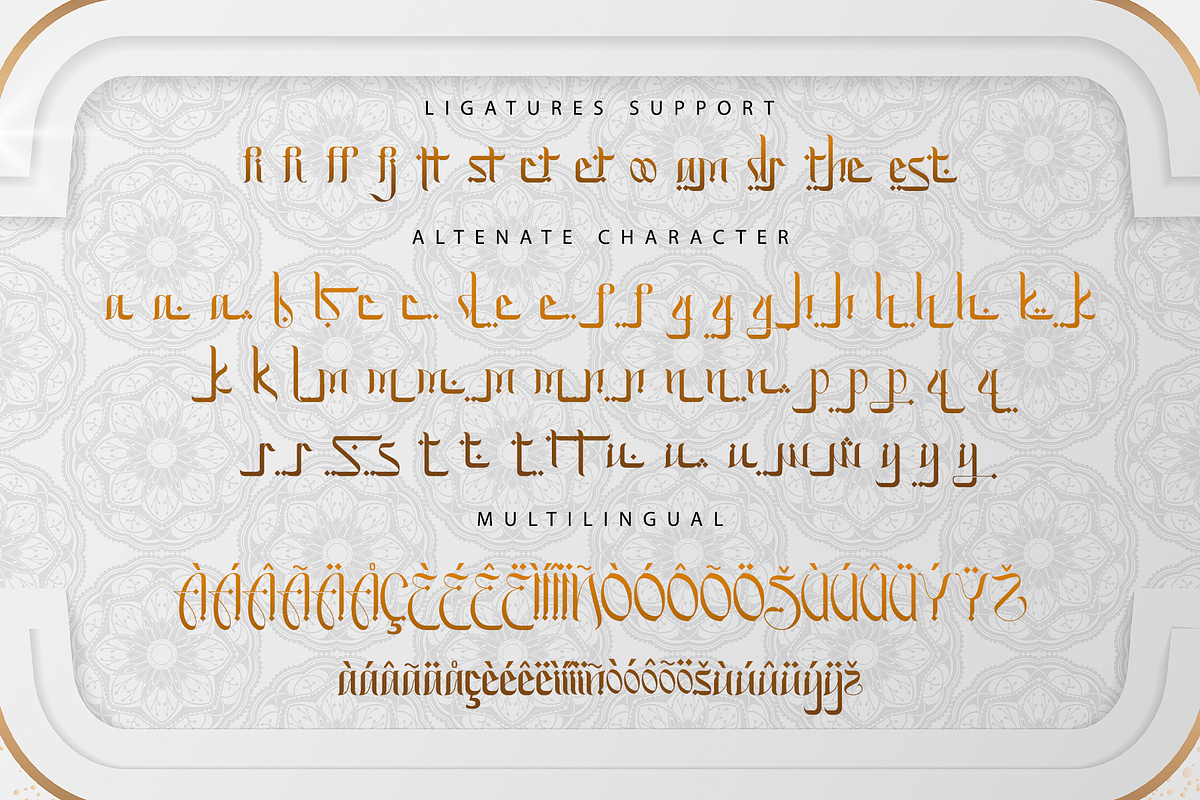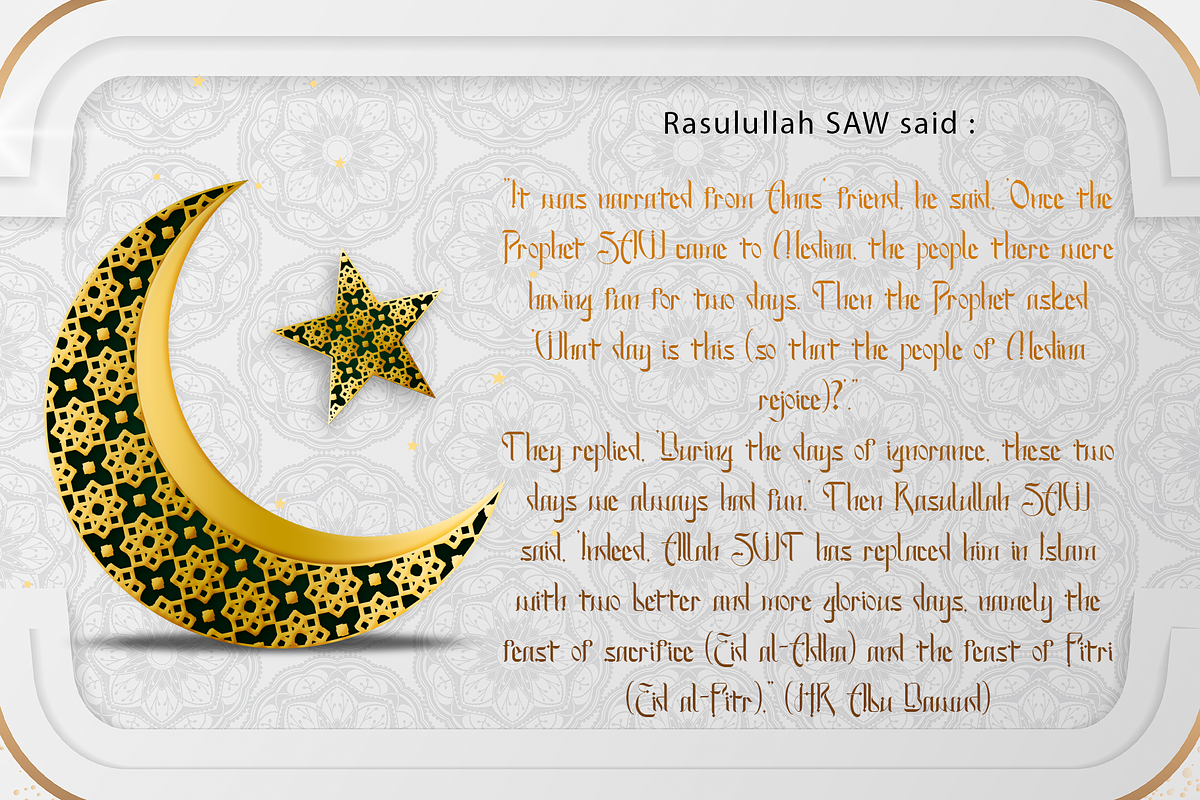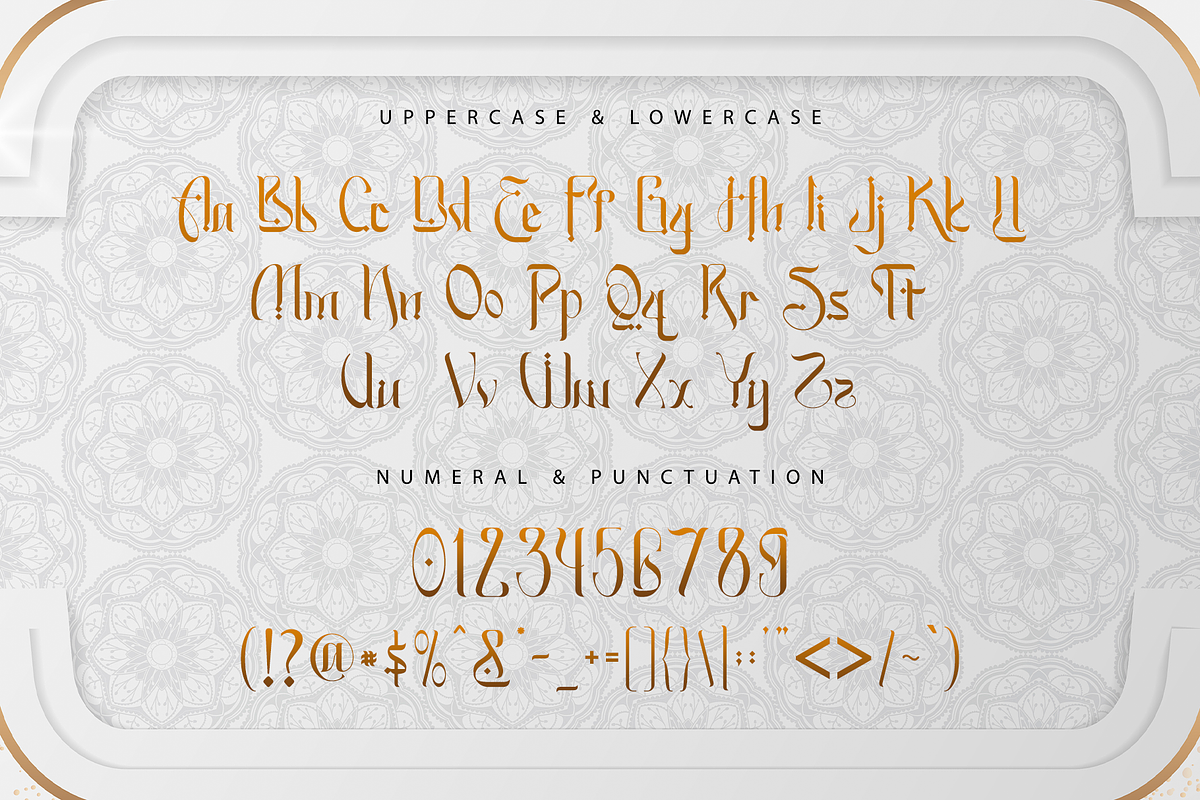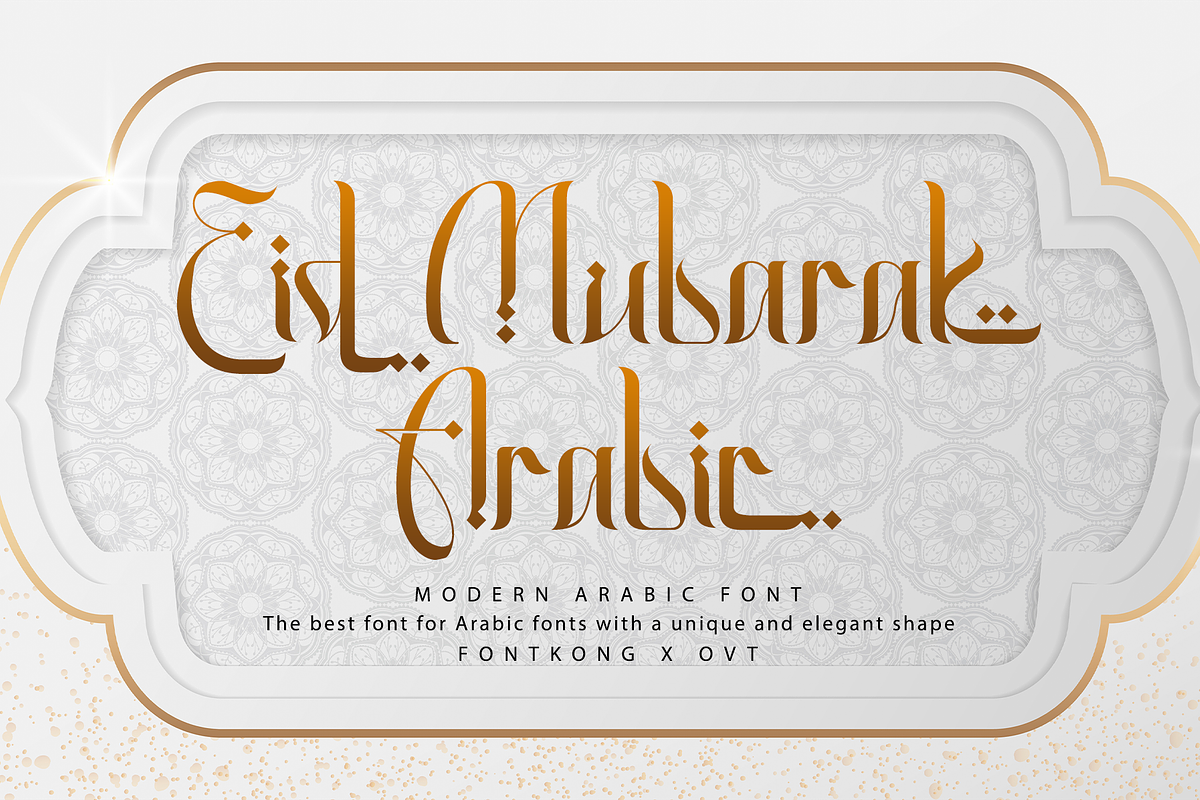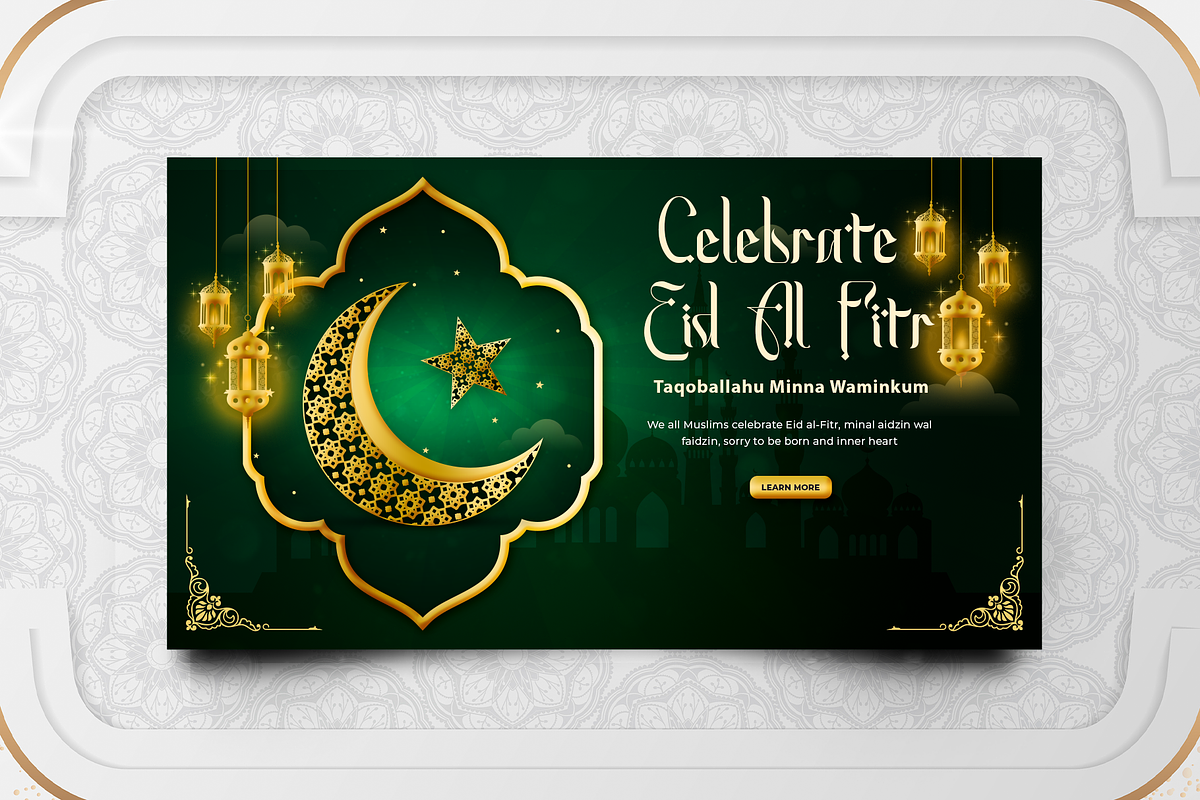
Eid Mubarak Arabic - Modern Arabic Font
Introducing "Eid Mubarak Arabic," a modern Arabic font designed to add a touch of elegance and sophistication to your celebratory messages. Perfect for conveying the spirit of Eid and other festive occasions, this typeface combines traditional Arabic script with a contemporary flair.
Ideal for greeting cards, event invitations, festive posters, social media graphics, and cultural branding, Eid Mubarak Arabic ensures your text is both beautiful and readable. Each character is meticulously crafted to maintain the essence of traditional Arabic calligraphy while offering a fresh, modern aesthetic.
Eid Mubarak Arabic includes a comprehensive set of Arabic characters, numerals, and punctuation marks, providing versatility for various design applications. Its modern yet authentic style makes it an excellent choice for designers seeking to create memorable and culturally resonant designs.
Celebrate with elegance and style using Eid Mubarak Arabic, a font that brings a modern touch to traditional Arabic script.